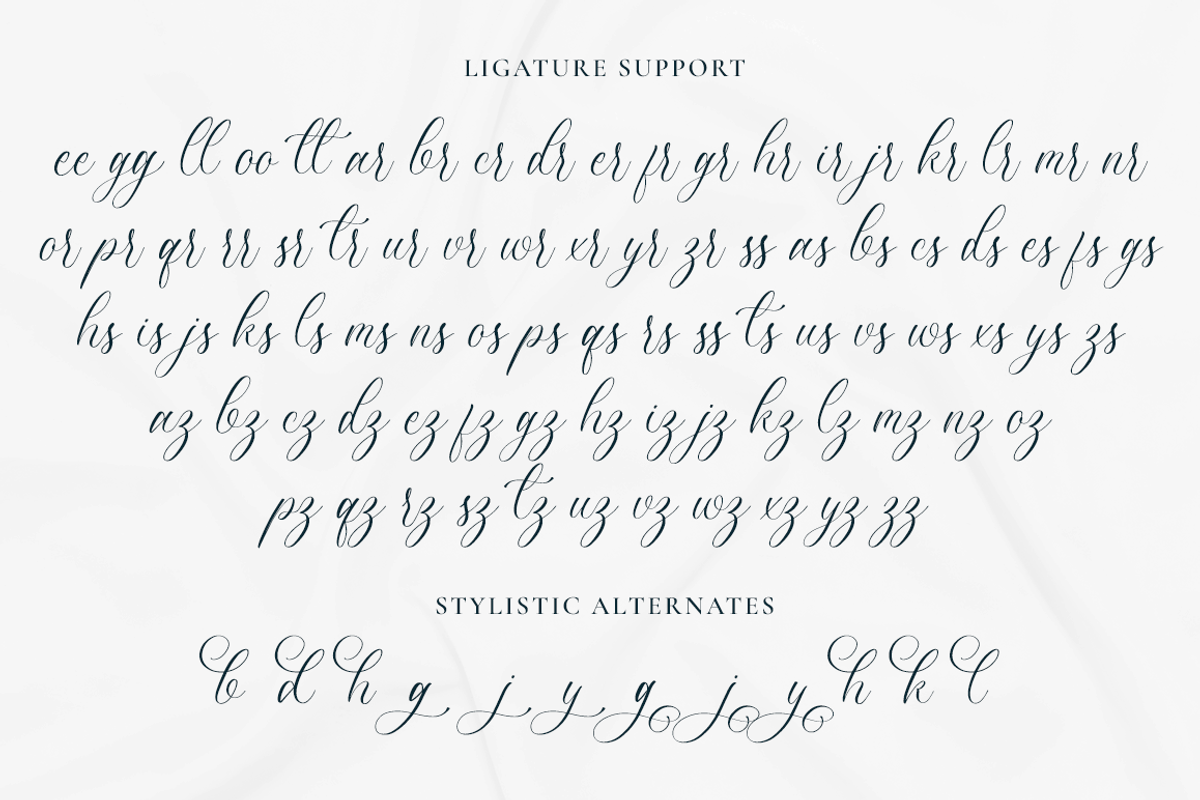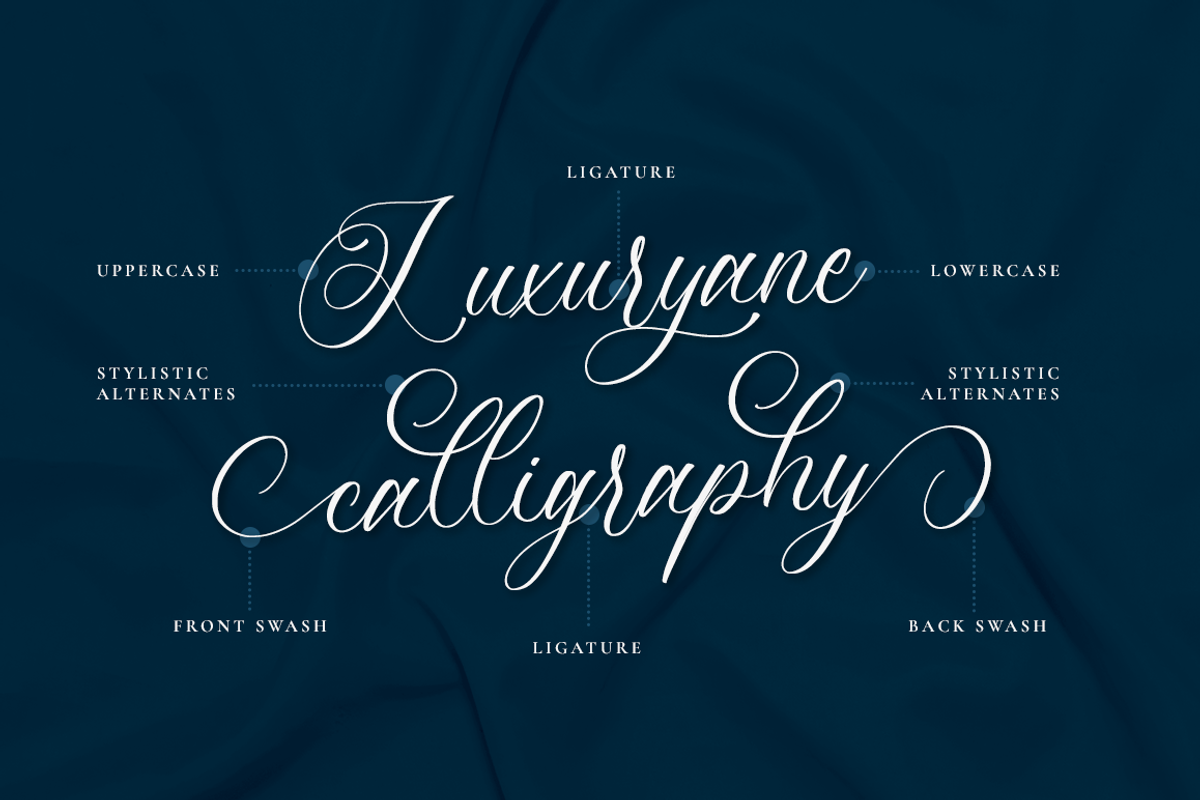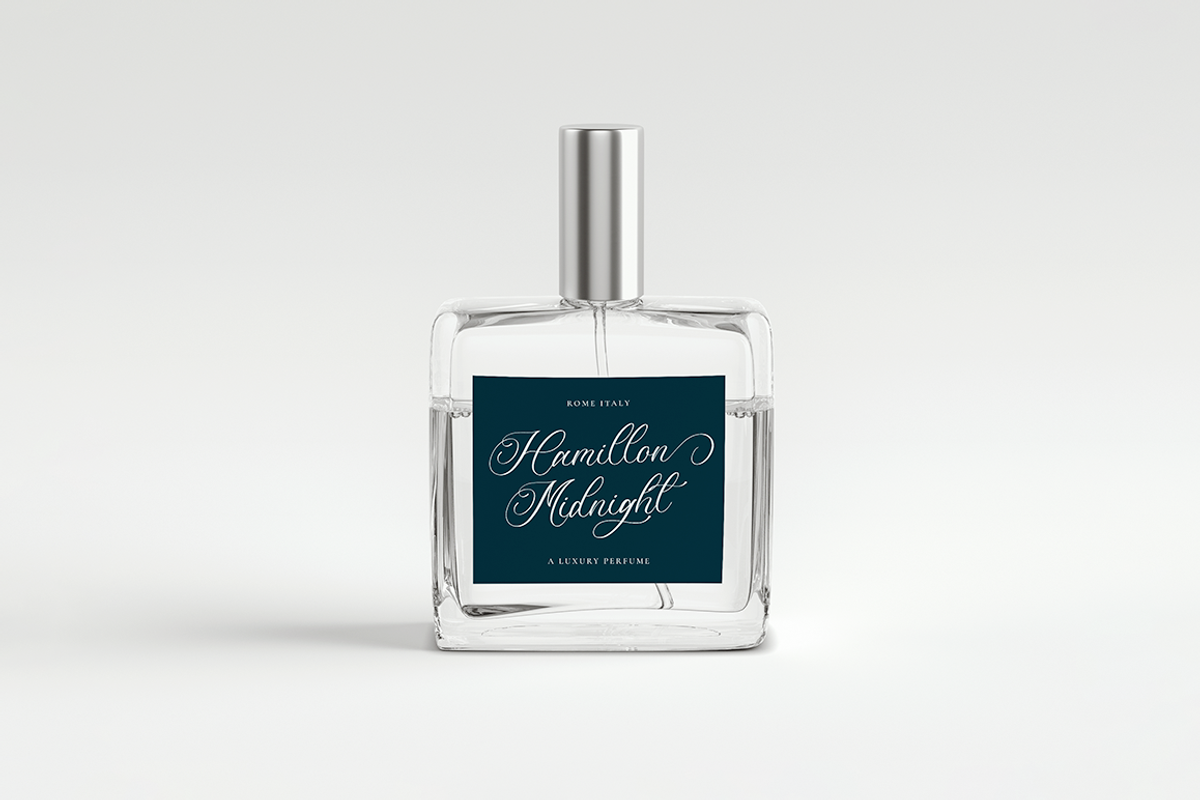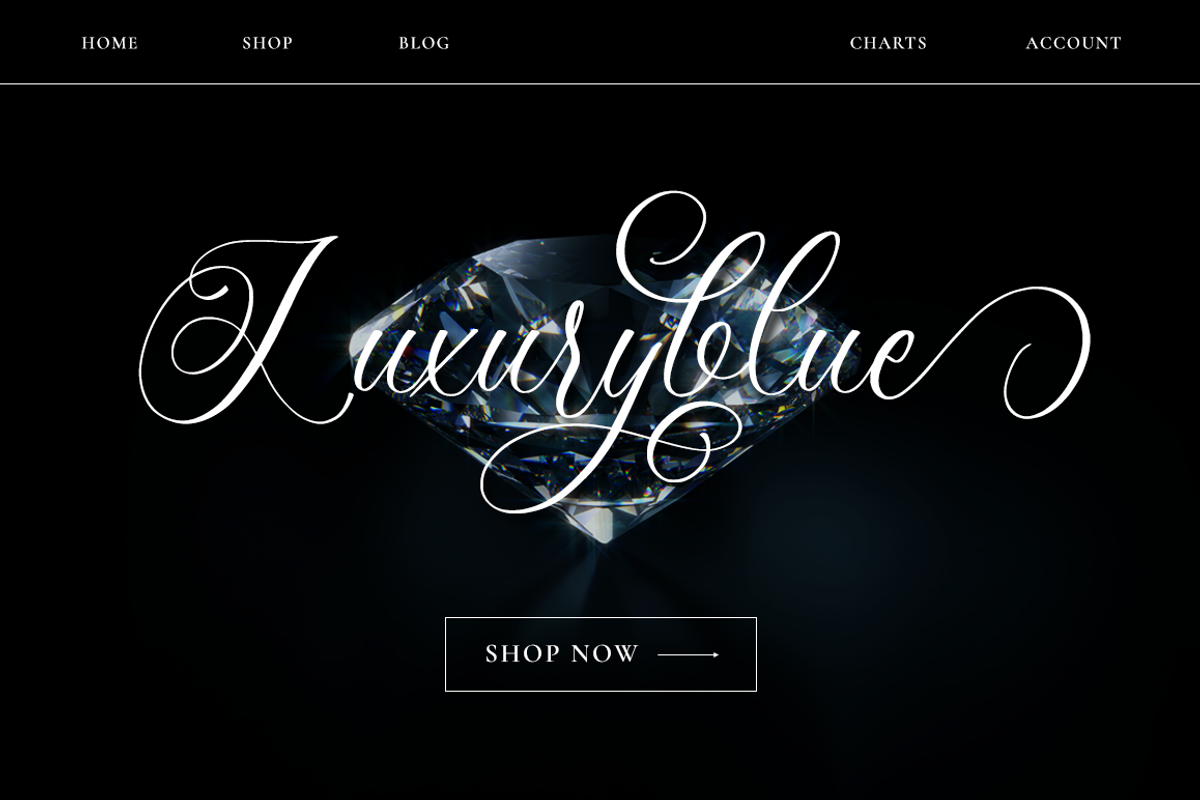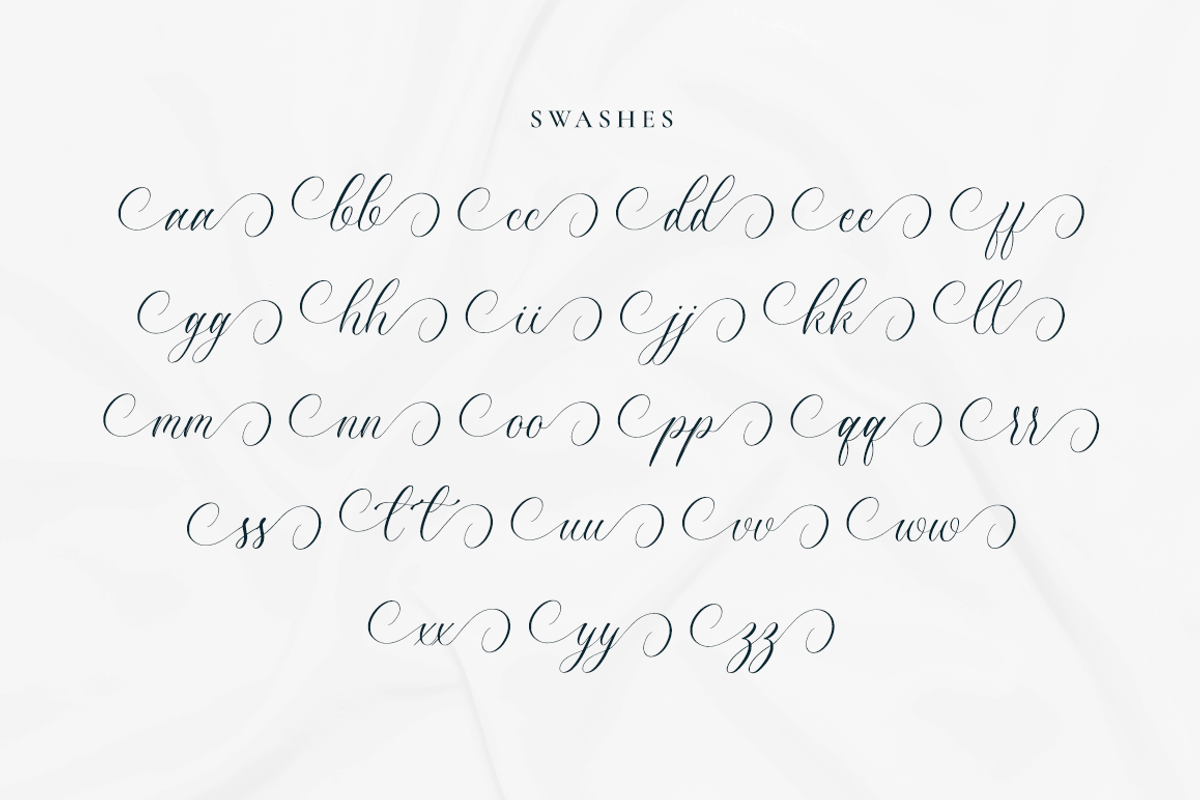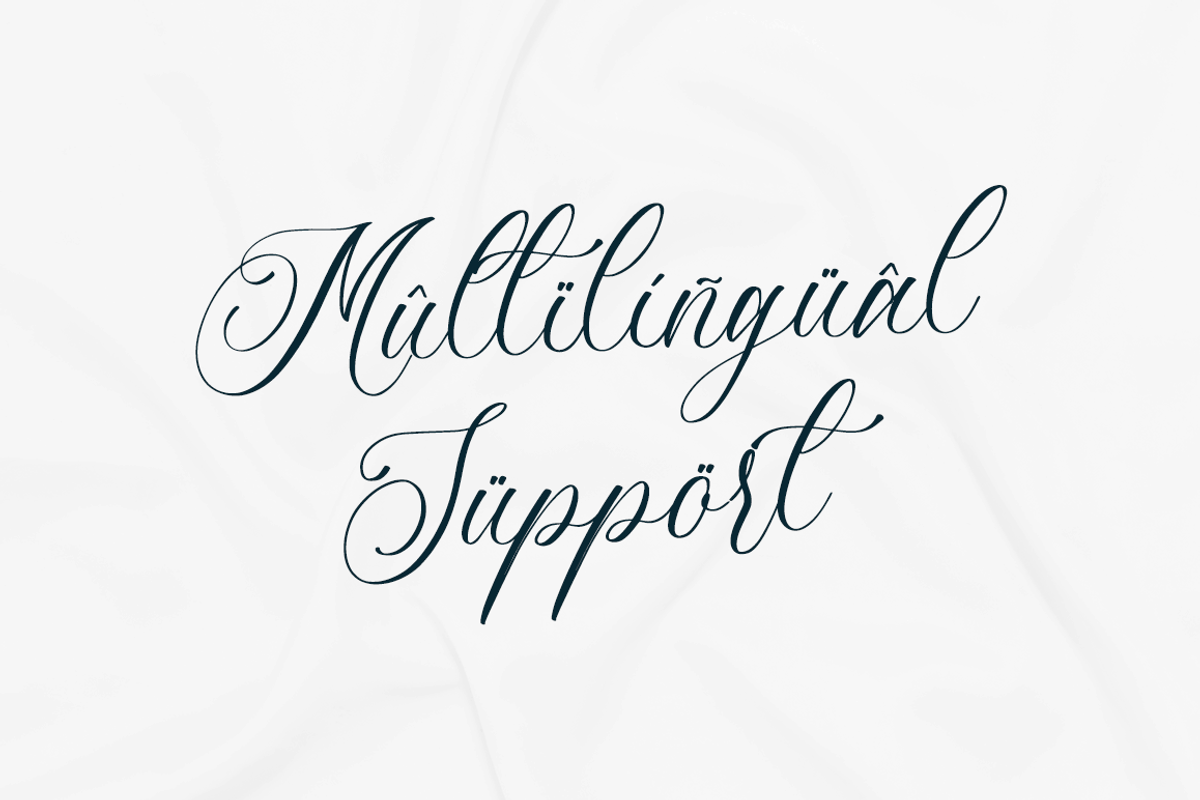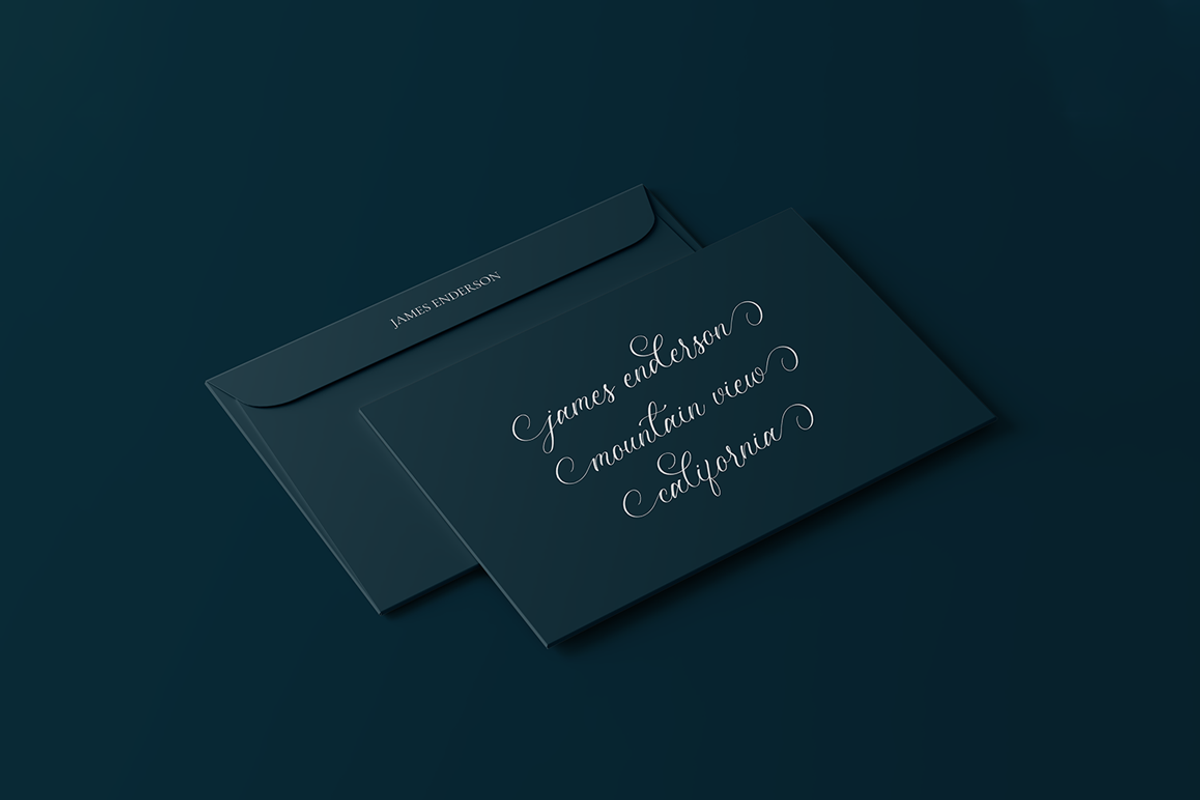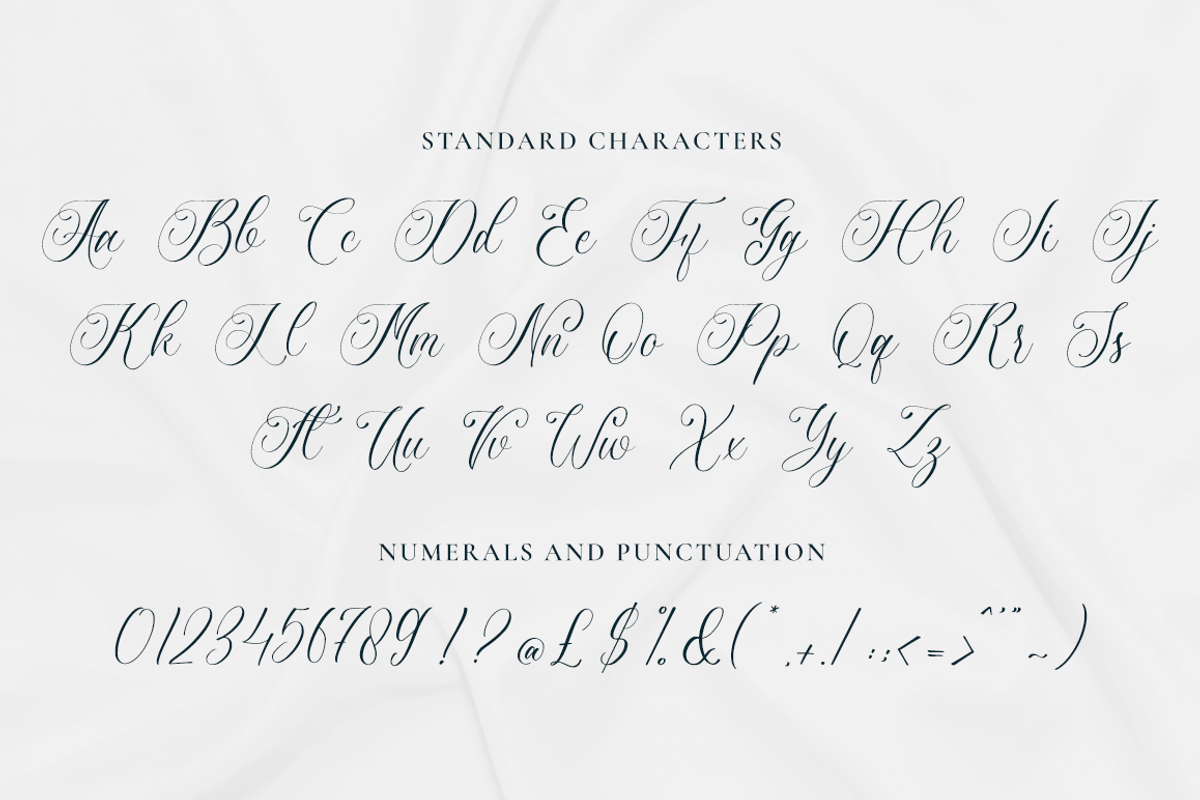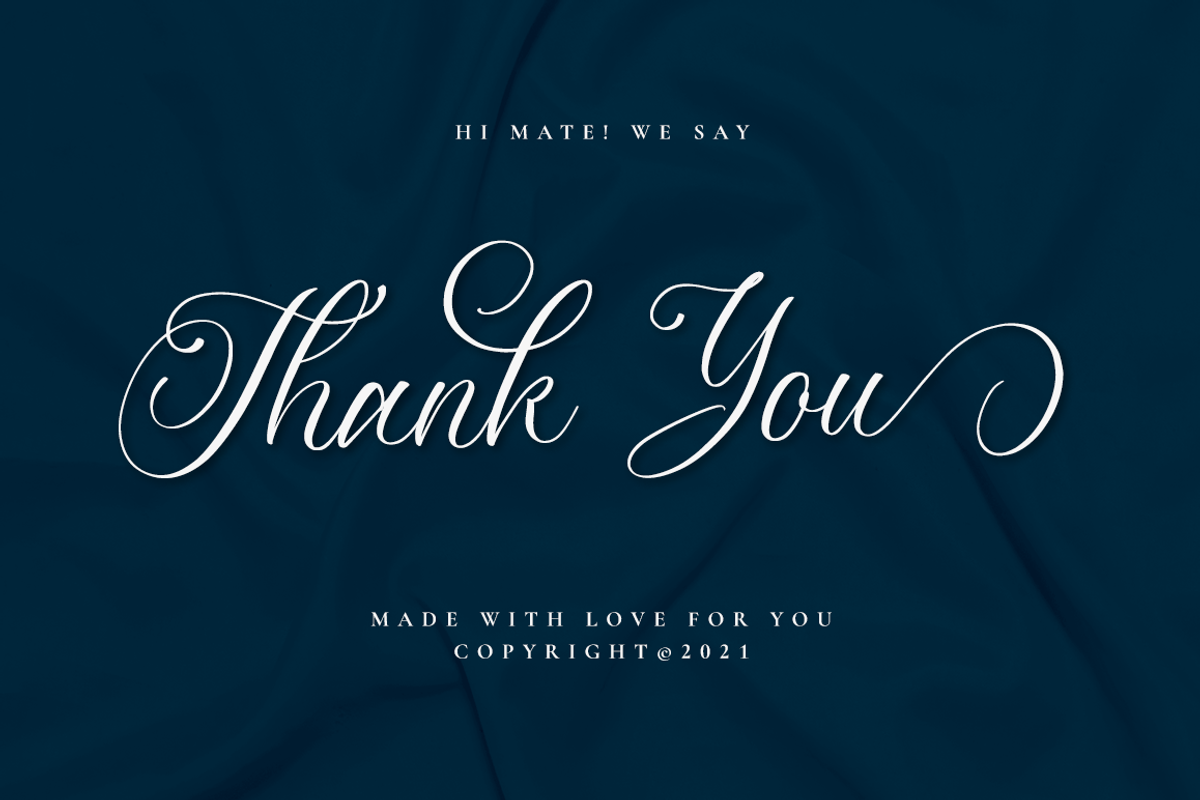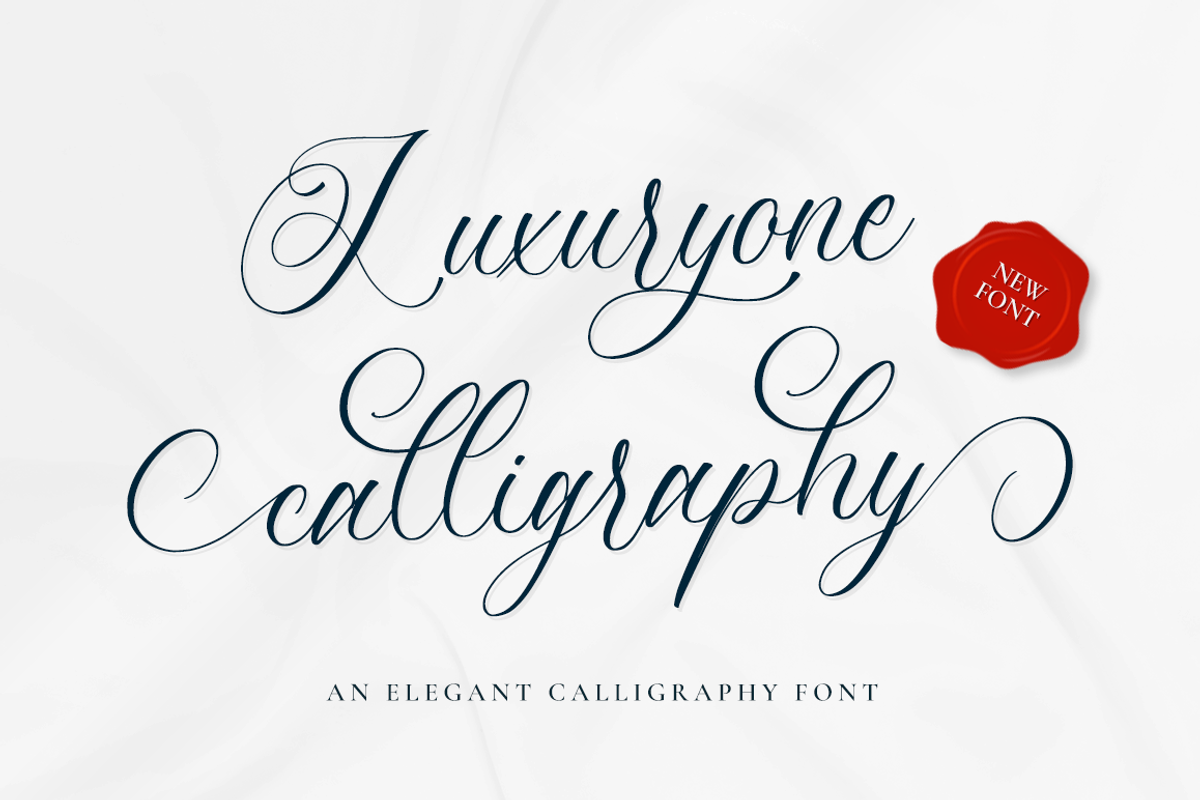
Luxuryone Calligraphy
Luxuryone Calligraphy is a lovely and delicate script font that exudes elegance and class. This font was particularly crafted for those who need a beautiful and refreshing look to their designs. Memorable is PUA encoded which means you can access all glyphs and swashes with ease!